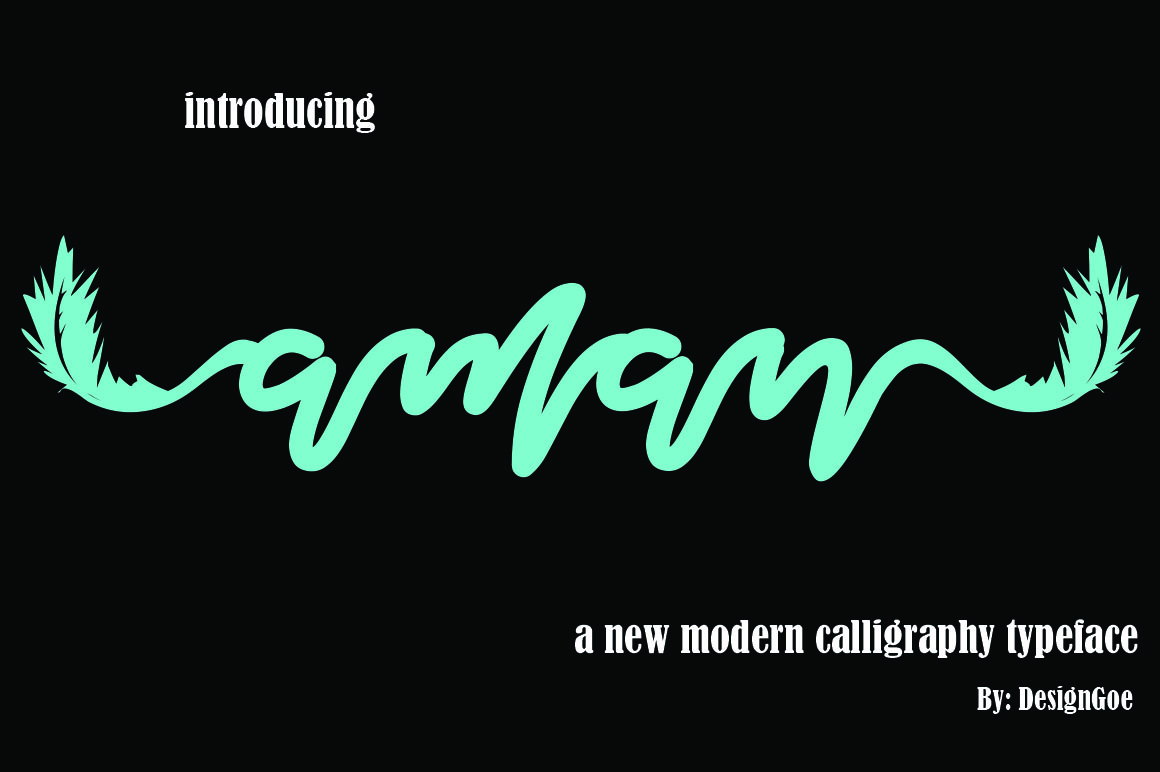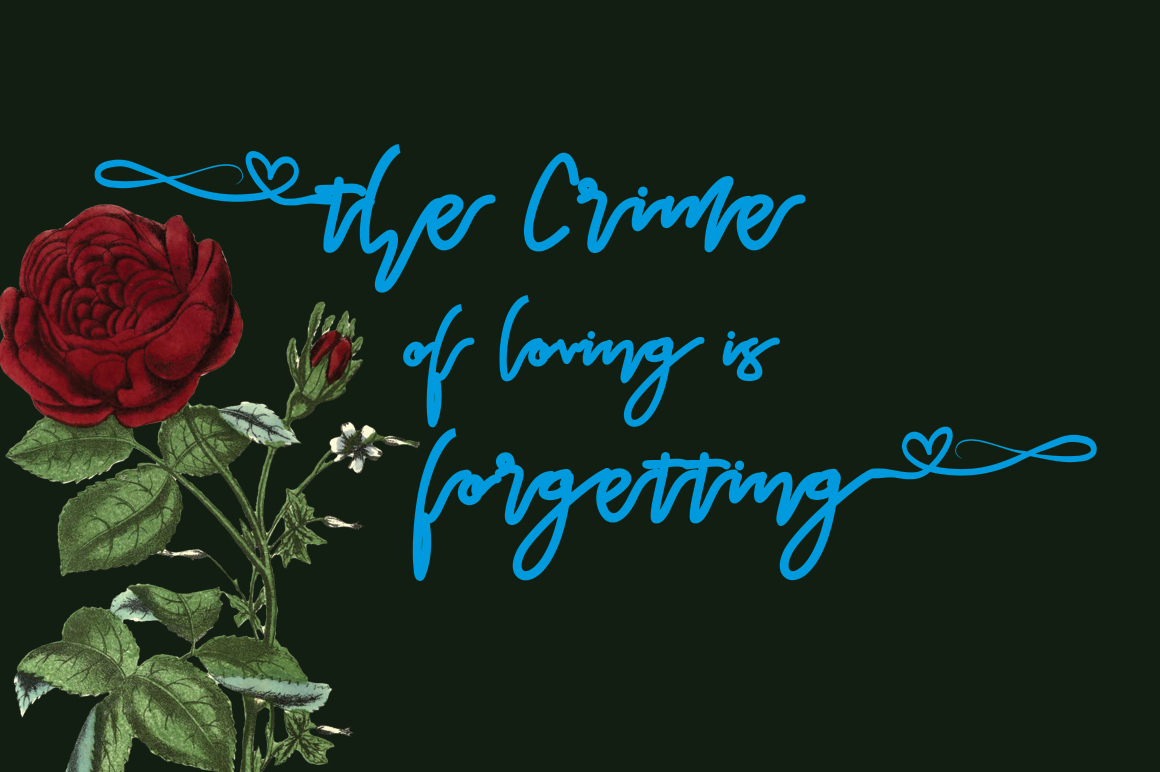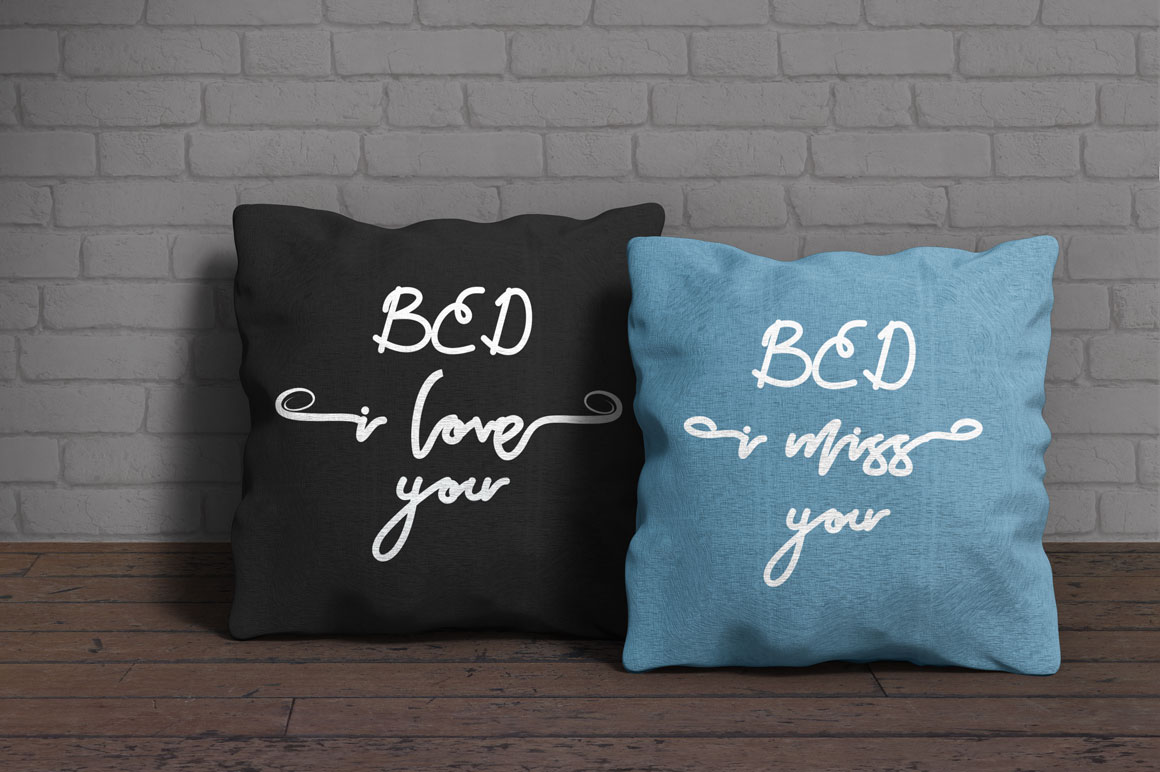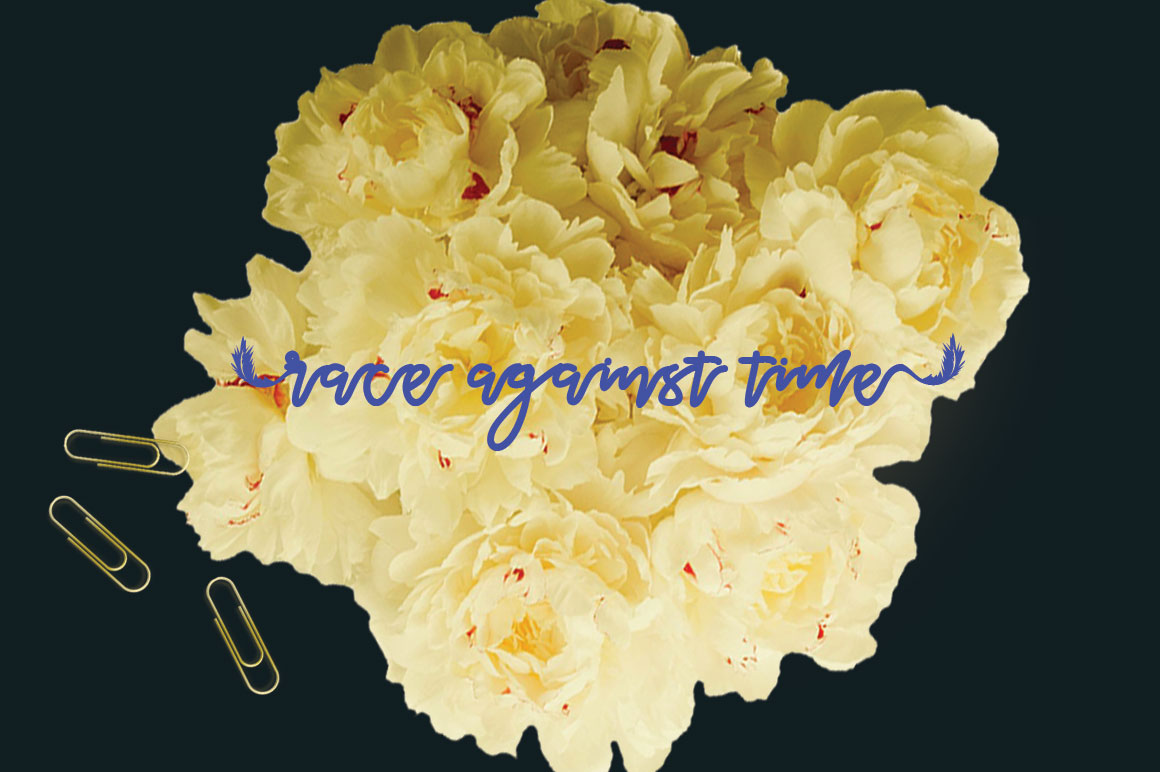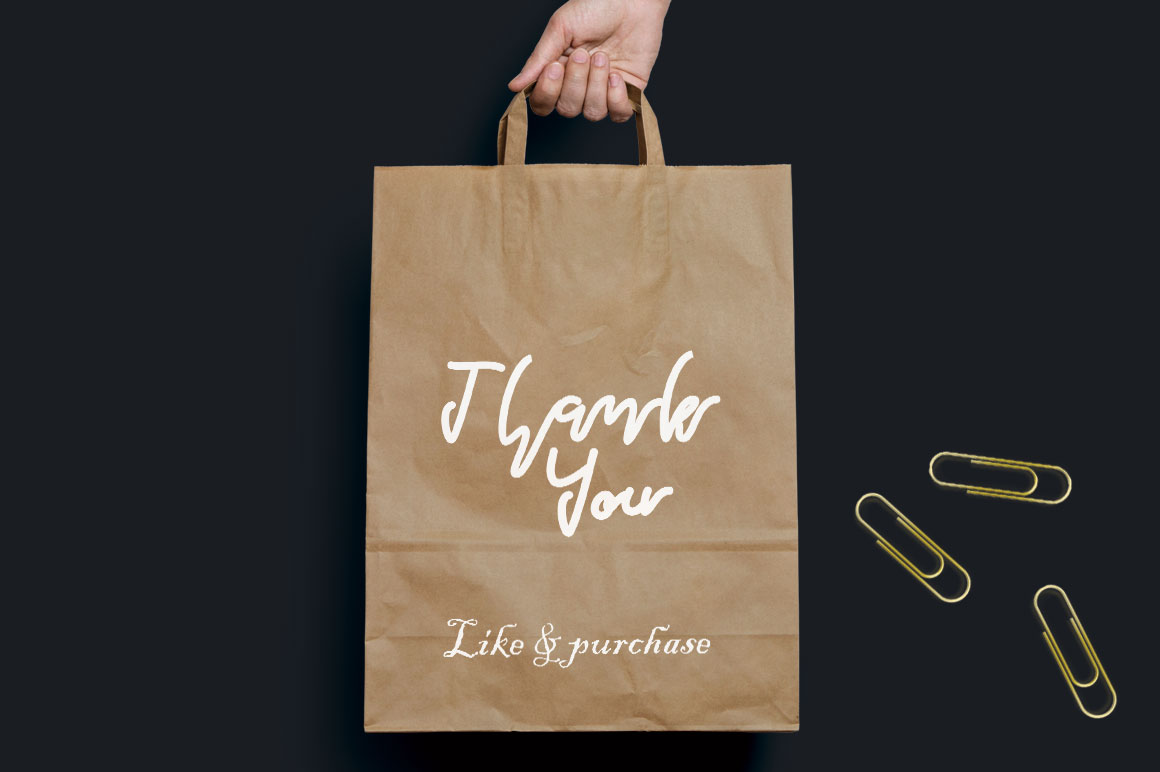
Aman Font
About Aman Font
Aman is a beautiful and flourished monoline script, wonderful for your more whimsical designs. With a dancing baseline and natural flow, Aman adds some character and depth to designs.